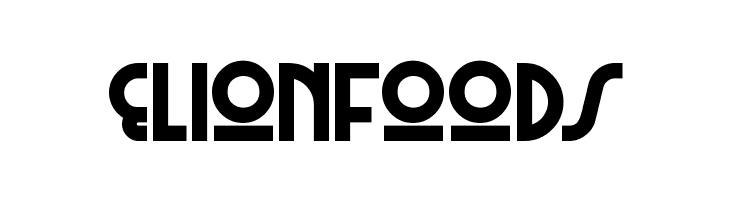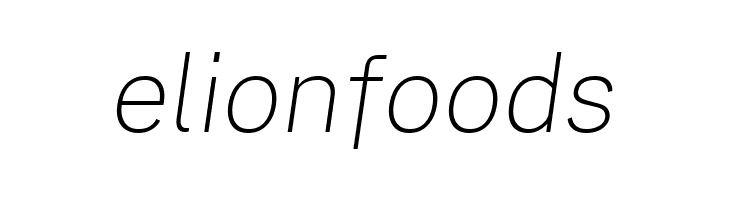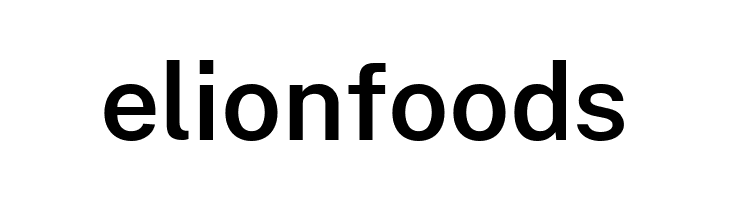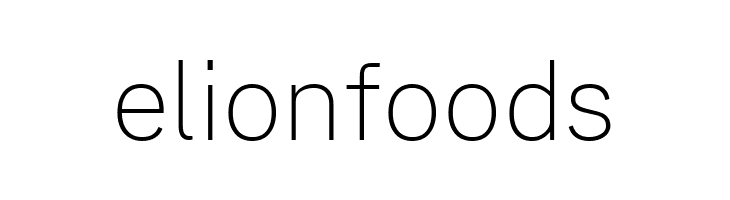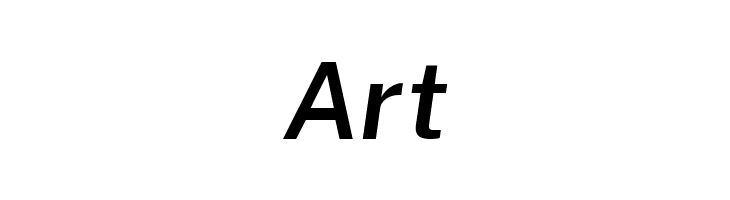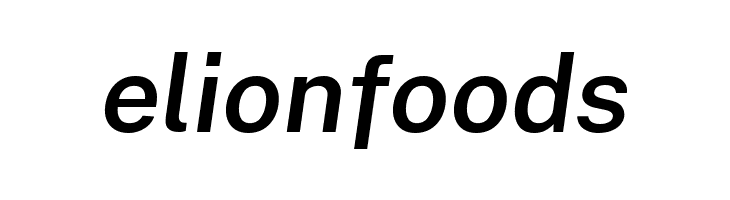
A modern, clean sans-serif typeface with consistent stroke width and balanced spacing.
A modern, medium-weight sans-serif font with an italic style and clean lines.
A clean, modern sans-serif font with uniform stroke width and excellent readability.
A modern, semi-bold sans-serif font with a clean and geometric design.
A modern sans-serif font with semi-bold weight and italic style.
A modern, thin sans-serif font with a clean and minimalistic design.
A sleek, modern sans-serif font with thin lines and an italic slant.
A bold, geometric font with Art Deco influences, perfect for striking designs.